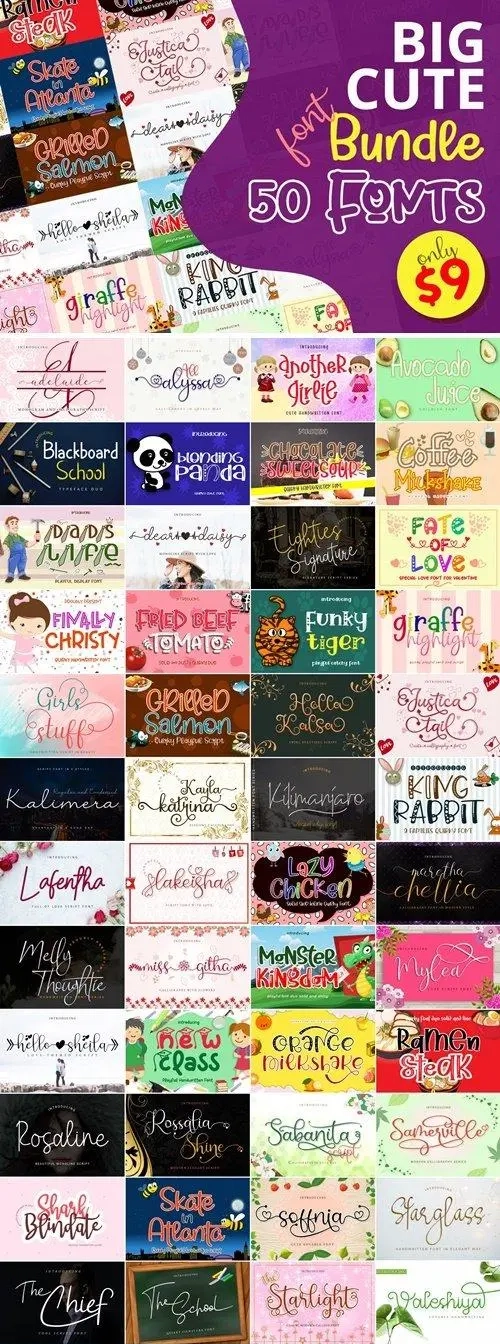
Introducing The Big Cute Fonts Bundle, a delightful collection of charming and playful typefaces designed to bring a touch of whimsy to your projects. This bundle features a variety of font styles, including script, handwritten, and display fonts, perfect for adding personality to your branding, logos, and more.
- Multiple font styles: script, handwritten, and display
- Various weights for versatility in design
- Easy to read and visually appealing
Each font in this bundle is crafted with attention to detail, ensuring that your text stands out. The fonts are suitable for both digital and print applications, making them ideal for invitations, posters, social media graphics, and more.
- Use script fonts for elegant invitations and greeting cards.
- Incorporate handwritten fonts for a personal touch in branding.
- Utilize display fonts for eye-catching headlines and posters.